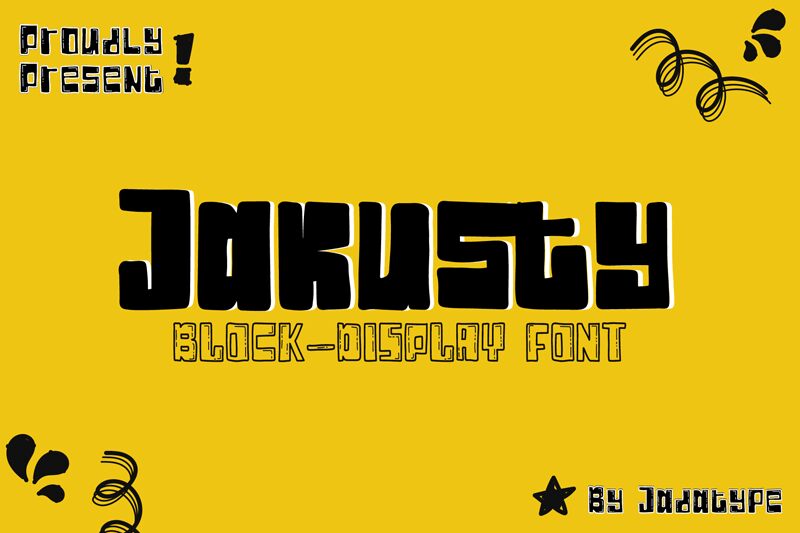
Jakusty Outline
Bold and captivating, the Jakusty Outline is a typeface created by Jadatype that is full of fun cartoonish aesthetics. With its edgy, recognizable lines and active strokes, this font makes an obvious impression conveying playfulness with energy. Its unusual character and boldness have made it conspicuous to be used for multiple design undertakings.
Jakusty Outline is highly suitable for headings, titles and branding in view of its bold expressive style. For packaging designs or event materials, or even multimedia presentations where strong personality compliments overall visual effect.